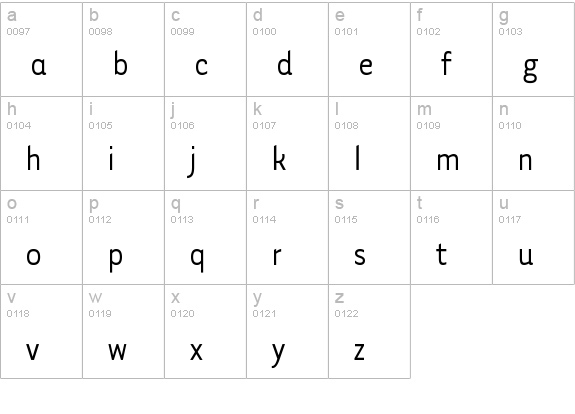
Introducing TarzanaNarrow, a breathtakingly elegant font that effortlessly combines sleek modernity with timeless sophistication. Its slender proportions and delicate curves make it the perfect choice for projects that require a touch of refined elegance. With its refined and graceful letterforms, TarzanaNarrow is an ideal choice for luxury branding, editorial design, wedding invitations, and other high-end projects. Its versatility allows it to seamlessly adapt to both digital and print mediums, ensuring that your message is conveyed with utmost clarity and style. But what truly sets TarzanaNarrow apart is its unique ability to captivate and mesmerize the reader. Whether it's used in headlines, titles, or body text, this font commands attention and leaves a lasting impression. And the best part? TarzanaNarrow is available for free download at FontsMarket.com! That's right, you can easily access this exquisite font and elevate your designs without breaking the bank. So why wait? Discover the beauty and versatility of TarzanaNarrow today and let your creativity soar to new heights.